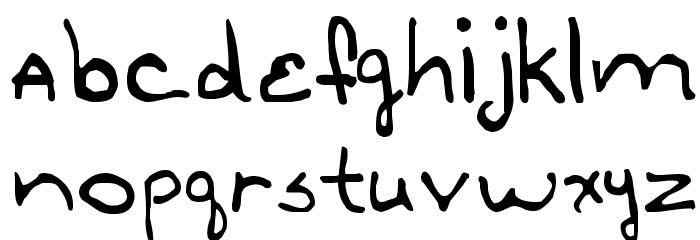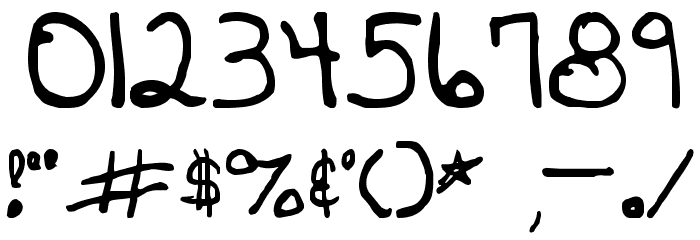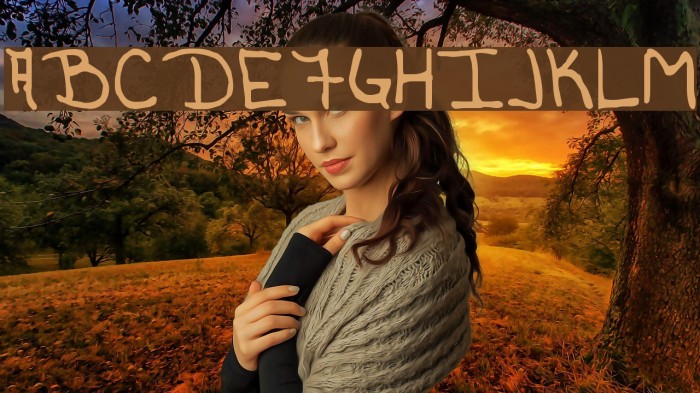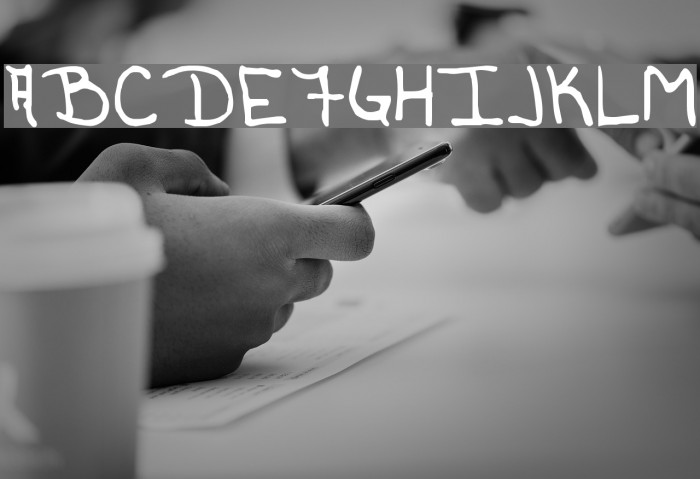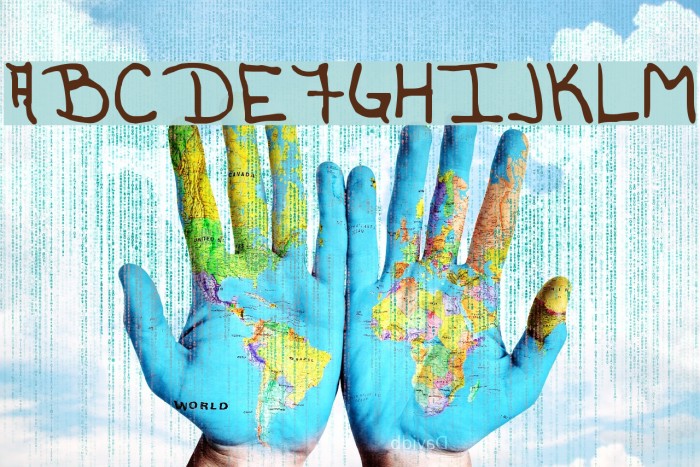
Annie Font
This font exhibits a playful and informal handwritten style, characterized by its irregular strokes and casual appearance. The letters are slightly uneven, giving it a natural and organic feel. The uppercase and lowercase letters maintain a consistent style, with rounded edges and a slight tilt, enhancing its approachable and friendly look. The numerals and special characters follow the same design ethos, ensuring uniformity across all glyphs. This font is ideal for projects that require a personal touch, such as invitations, greeting cards, or creative branding.
A playful, informal handwritten font with a casual and friendly appearance.
- Proposed Projects: Ideal for invitations, greeting cards, personal branding, and creative projects.
- Category: Handwritten
- Overall Style: Casual, Playful
- Use Case: Headlines, Informal text, Creative projects